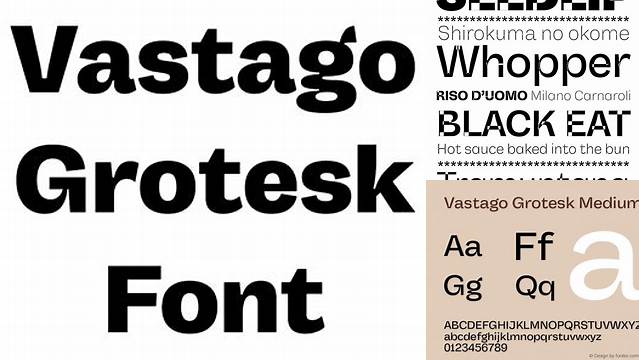
Hey guys! Ever been on the hunt for that perfect font? You know, the one that just screams sophistication and modernity, but also has that unique little twist? Well, let me introduce you to the Vastago Grotesk font! This font family is a real gem, and if you’re anything like me, you’ll be itching to get your hands on it. So, let’s dive into everything you need to know about Vastago Grotesk, including how to snag a free download in TTF format.
What is Vastago Grotesk?
Vastago Grotesk is more than just another font; it's a statement. It’s a modern sans-serif typeface known for its clean lines, balanced letterforms, and overall readability. Think of it as the cool, sophisticated cousin of your everyday fonts. It’s versatile enough to be used in a variety of design projects, from branding and logos to websites and print materials. The beauty of Vastago Grotesk font lies in its ability to convey a sense of professionalism while still maintaining a unique personality. It's not just about the words you're writing; it's about the feeling the font evokes, and Vastago Grotesk nails that balance perfectly. Whether you're designing a sleek, modern website or crafting a classic, elegant brochure, this font is your go-to choice for making a lasting impression.
Why Choose Vastago Grotesk?
So, why should you even bother with Vastago Grotesk when there are a million other fonts out there? Good question! Here's the deal: this font stands out because of its versatility and unique character. It’s not just another generic sans-serif; it has personality! The clean lines and balanced letterforms make it incredibly readable, which is crucial for any design project. Whether it's a website, a logo, or a print ad, clarity is key. But beyond readability, Vastago Grotesk brings a touch of elegance and sophistication. Imagine using it for a high-end brand’s logo – it instantly elevates the design. Or picture it on a modern website, where its clean aesthetic enhances the overall user experience. Plus, the fact that you can find a Vastago Grotesk font free download TTF makes it even more appealing, especially if you're on a budget. It’s a win-win situation: you get a top-notch font without breaking the bank.
Benefits of Using Vastago Grotesk Font
Using Vastago Grotesk font comes with a ton of benefits, guys. First off, its versatility is a major plus. You can use it for pretty much anything! Think logos, headlines, body text – you name it. The clean and modern design makes it super adaptable. Another huge benefit is readability. No matter where you use it, your text will be clear and easy to read, which is so important for keeping your audience engaged. And let’s not forget the aesthetic appeal. Vastago Grotesk has this unique blend of professionalism and style that can really make your designs pop. It adds a touch of sophistication without being too over-the-top. Plus, finding a Vastago Grotesk font free download TTF means you get all these perks without spending a dime. It’s like finding the perfect ingredient for your design recipe – it just makes everything better!
Utilizing Vastago Grotesk in Graphic Design Projects
Using Vastago Grotesk in Web Design
When it comes to web design, the Vastago Grotesk font can be a total game-changer. Its clean and modern aesthetic makes it perfect for creating websites that look both professional and stylish. The fact that it’s highly readable is a huge bonus, because let’s face it, no one wants to squint at a website with a funky, hard-to-read font. Vastago Grotesk works wonders for headlines, where its strong, clear lines can draw the user’s eye. But it's not just a one-trick pony – it’s equally effective for body text, ensuring that your content is easy to digest. When using Vastago Grotesk font on the web, think about things like font size and line height to optimize readability. A good rule of thumb is to use a slightly larger font size for body text on screens than you would in print. Also, consider the contrast between your text and background color to make sure your content really pops. And remember, a Vastago Grotesk font free download TTF means you can create a stunning website without blowing your budget on fonts. Talk about a win-win!
Conclusion: Is Vastago Grotesk Font Right for You?
So, we’ve covered a lot about Vastago Grotesk font, from its clean and modern design to where you can find a Vastago Grotesk font free download TTF. But the big question is: is it right for you? Well, if you’re looking for a versatile and readable sans-serif font that can elevate your designs, the answer is likely a resounding yes! Vastago Grotesk’s clean lines and balanced letterforms make it a great choice for a wide range of projects, from logos and branding to websites and print materials. Its versatility means you can use it for headlines, body text, and everything in between. And the fact that you can often find a free download makes it even more appealing, especially if you’re on a budget. Ultimately, the best way to decide if Vastago Grotesk is the right font for you is to try it out in your own projects. Experiment with different weights and styles, and see how it looks alongside other fonts. With its modern aesthetic and excellent readability, Vastago Grotesk is a font that’s sure to become a staple in your design toolkit.